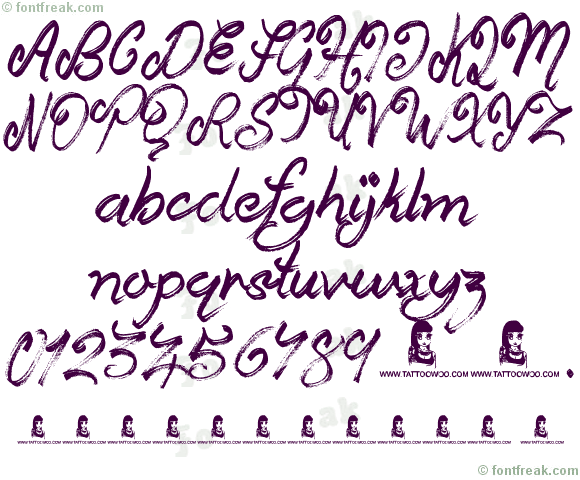
Dicey Slices
About Dicey Slices
Dicey Slices is a captivating display font designed by Jonathan S. Harris, characterized by its playful and artistic flair. This decorative font features a unique blend of brush script elements that evoke a sense of spontaneity and creativity. The strokes exhibit a moderate weight, providing a balanced contrast that enhances readability while maintaining an expressive, hand-crafted appearance. The letters are well-spaced, allowing for easy legibility, making it suitable for various design applications.
The visual characteristics of the Dicey Slices font reveal a delightful mix of bold and fluid curves, with slight irregularities that add to its charm. These decorative elements create a sense of movement, making it an excellent choice for projects that aim to convey a lively and informal tone. The font is particularly well-suited for use in wedding invitations, where its personable style can enhance romantic themes. Additionally, it works wonderfully for creating eye-catching movie posters, restaurant menus that seek to convey a trendy atmosphere, and social media graphics that require a touch of personality.
What sets Dicey Slices apart is its ability to blend artistic flair with practicality, making it a versatile choice for a wide range of applications. Whether you're crafting a promotional flyer or designing a unique logo, this font’s engaging aesthetic will undoubtedly captivate your audience and elevate your design work.